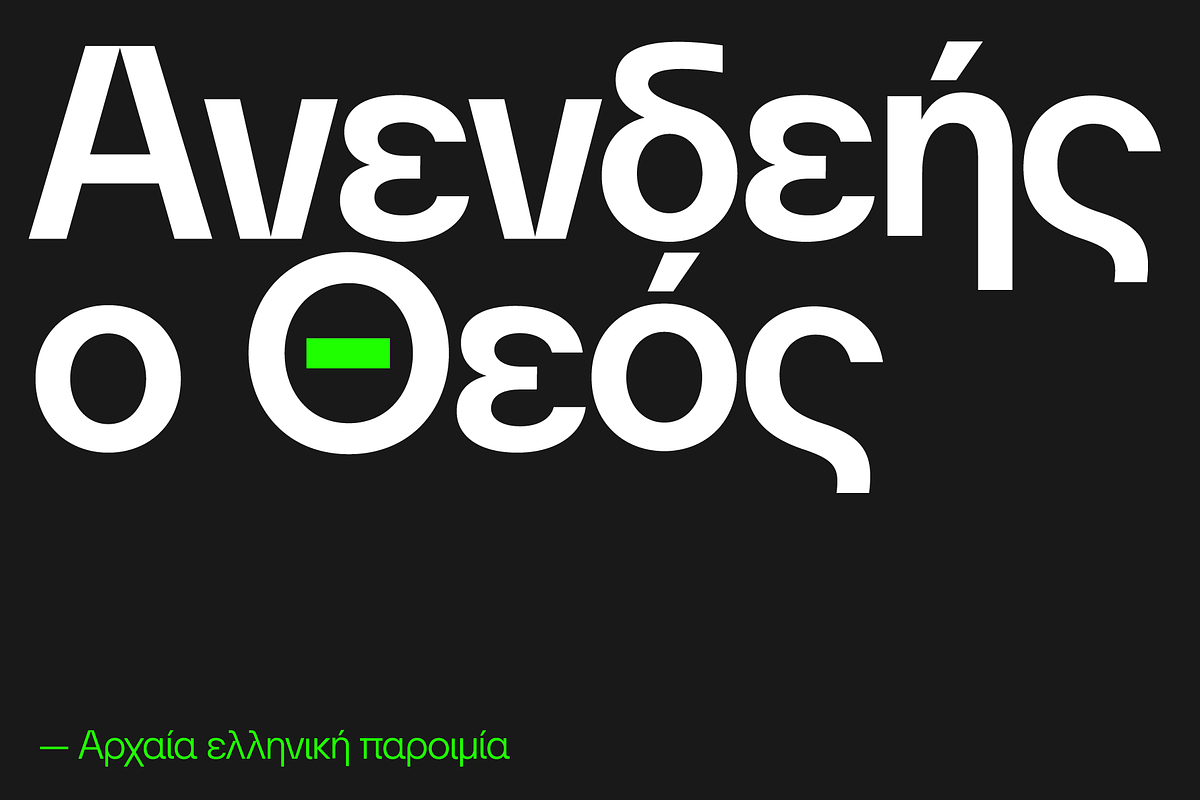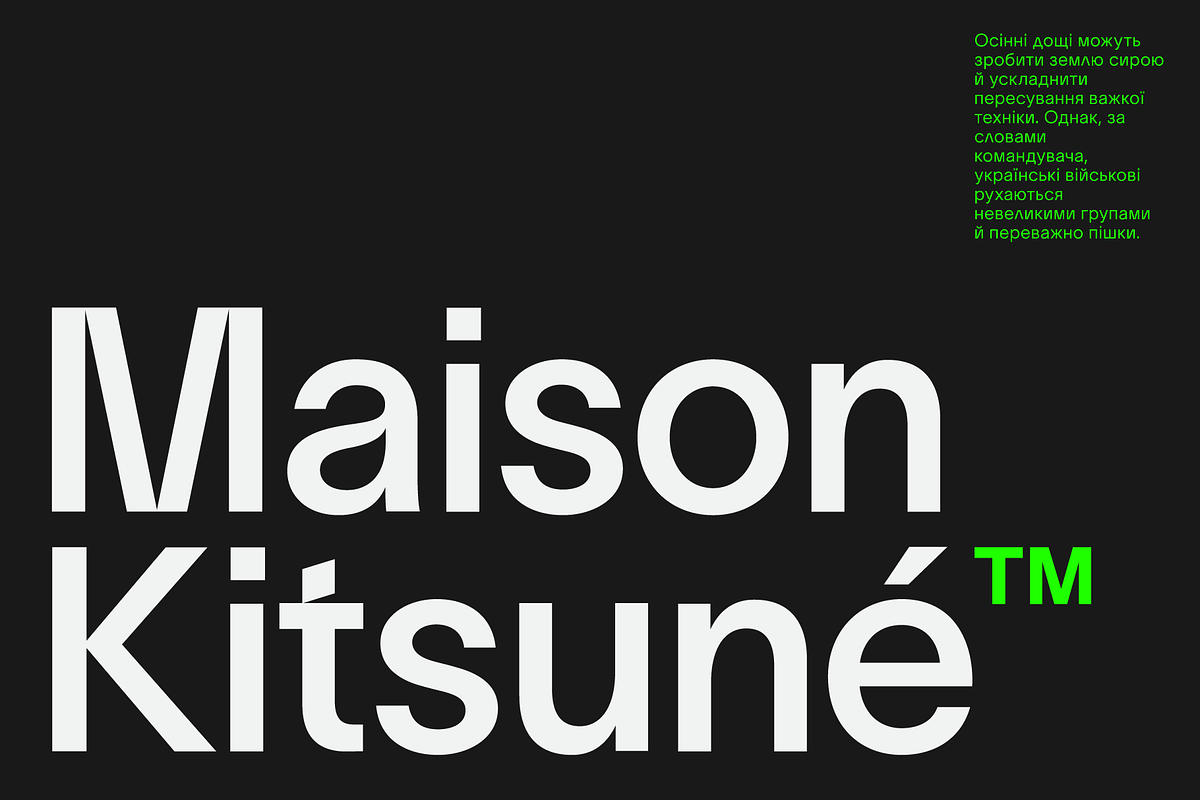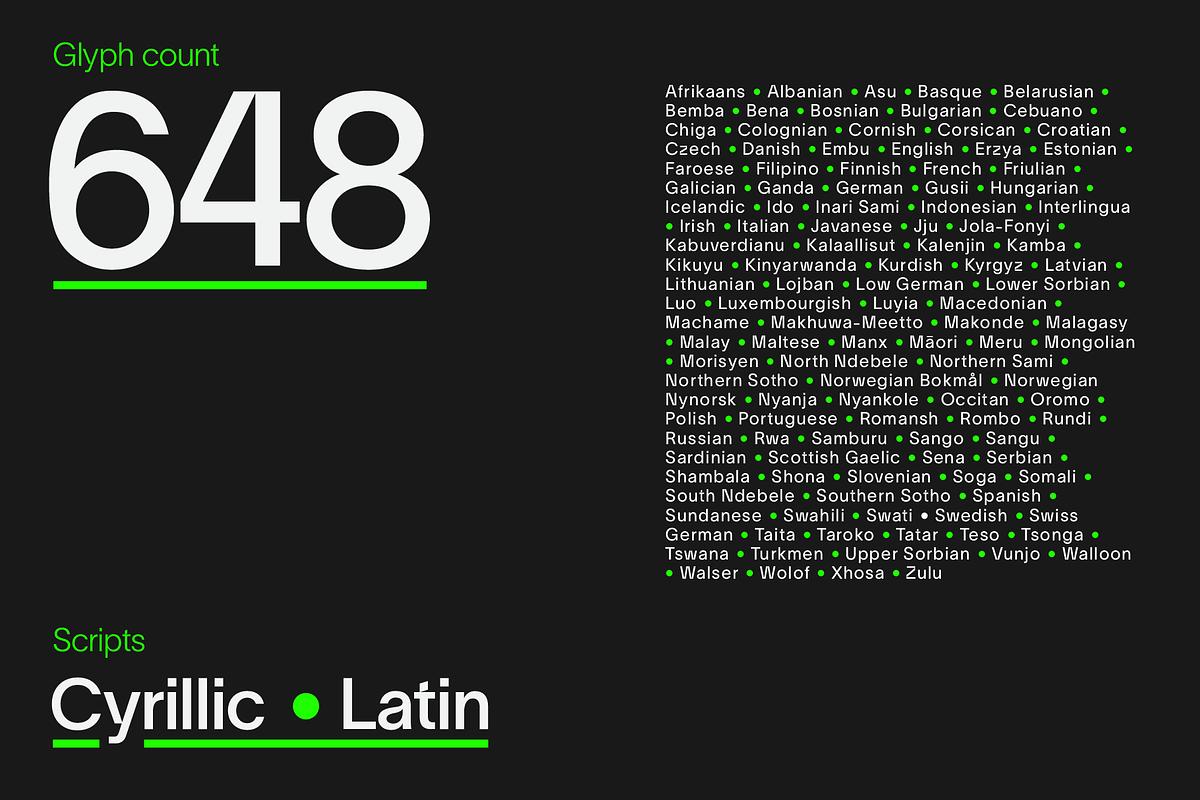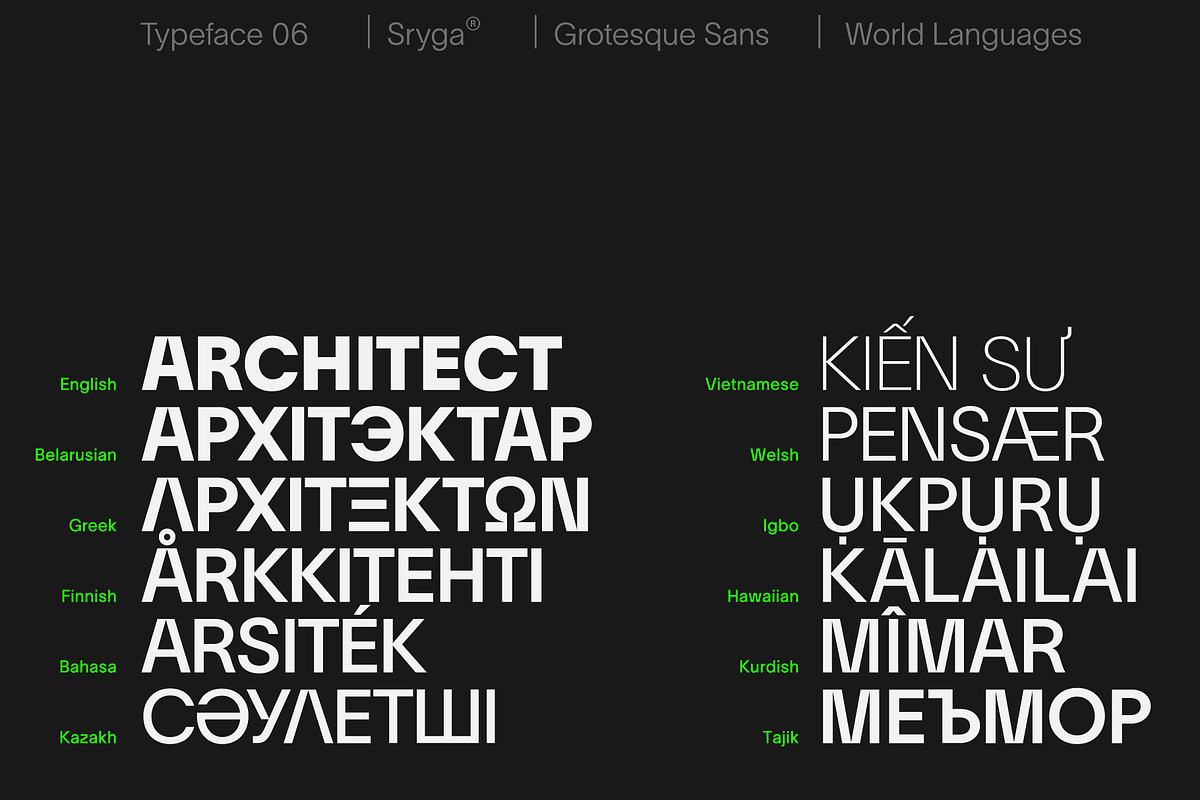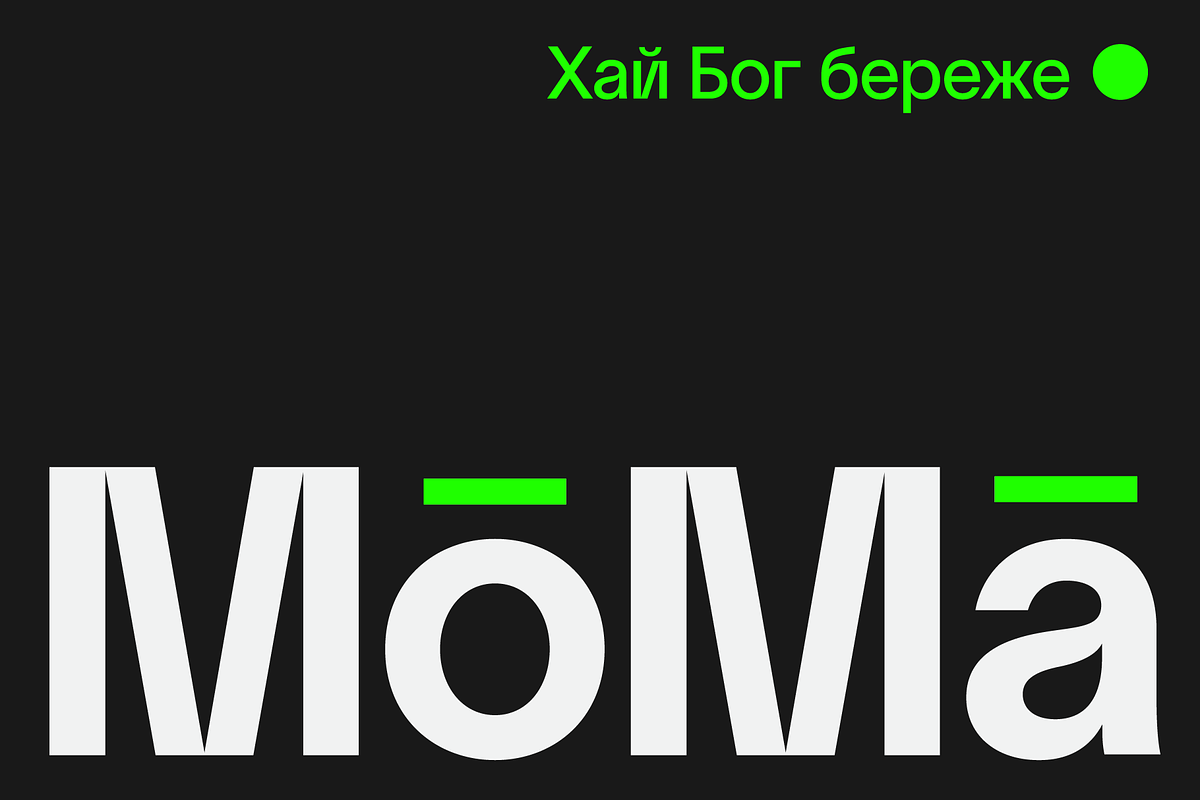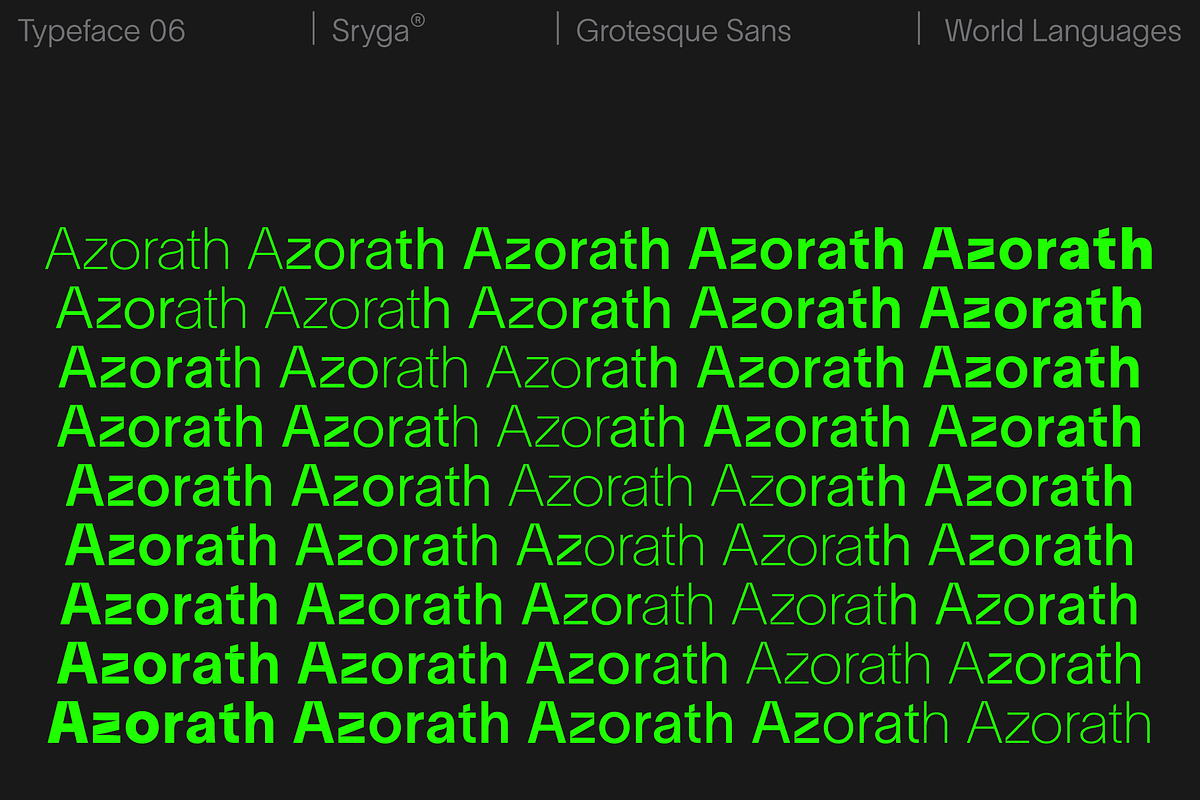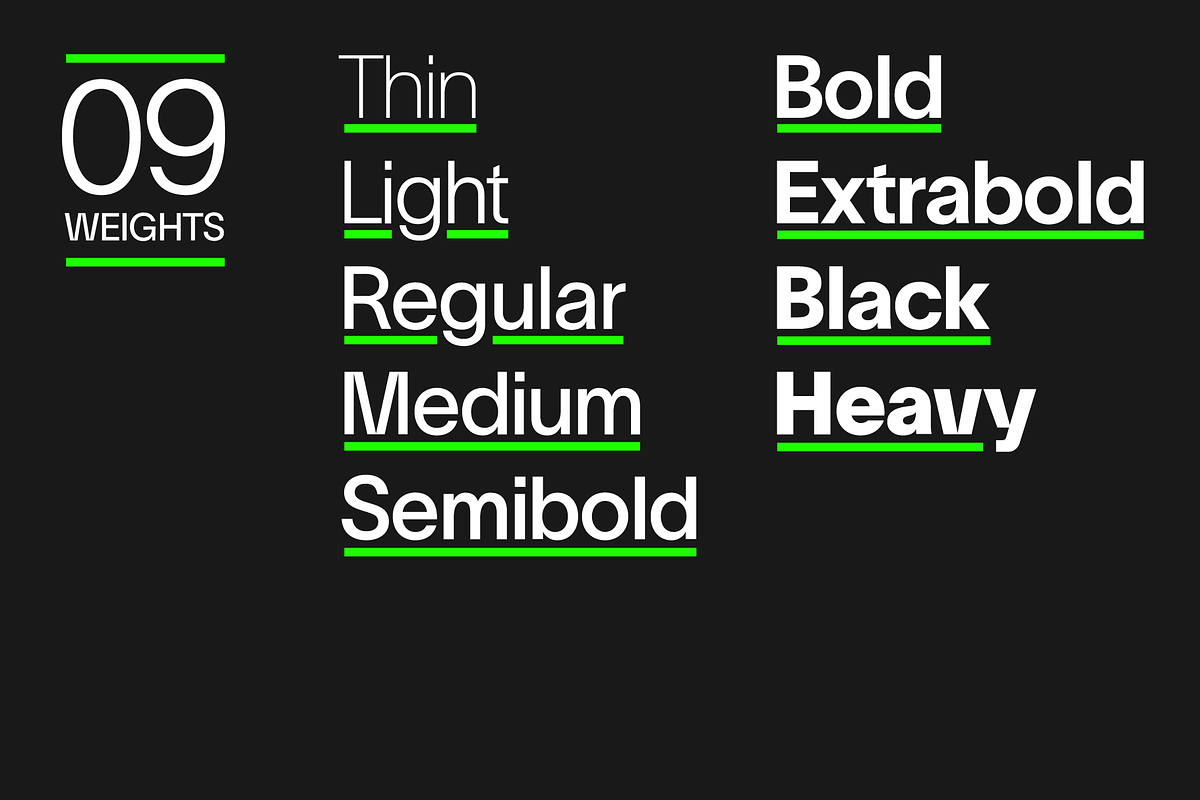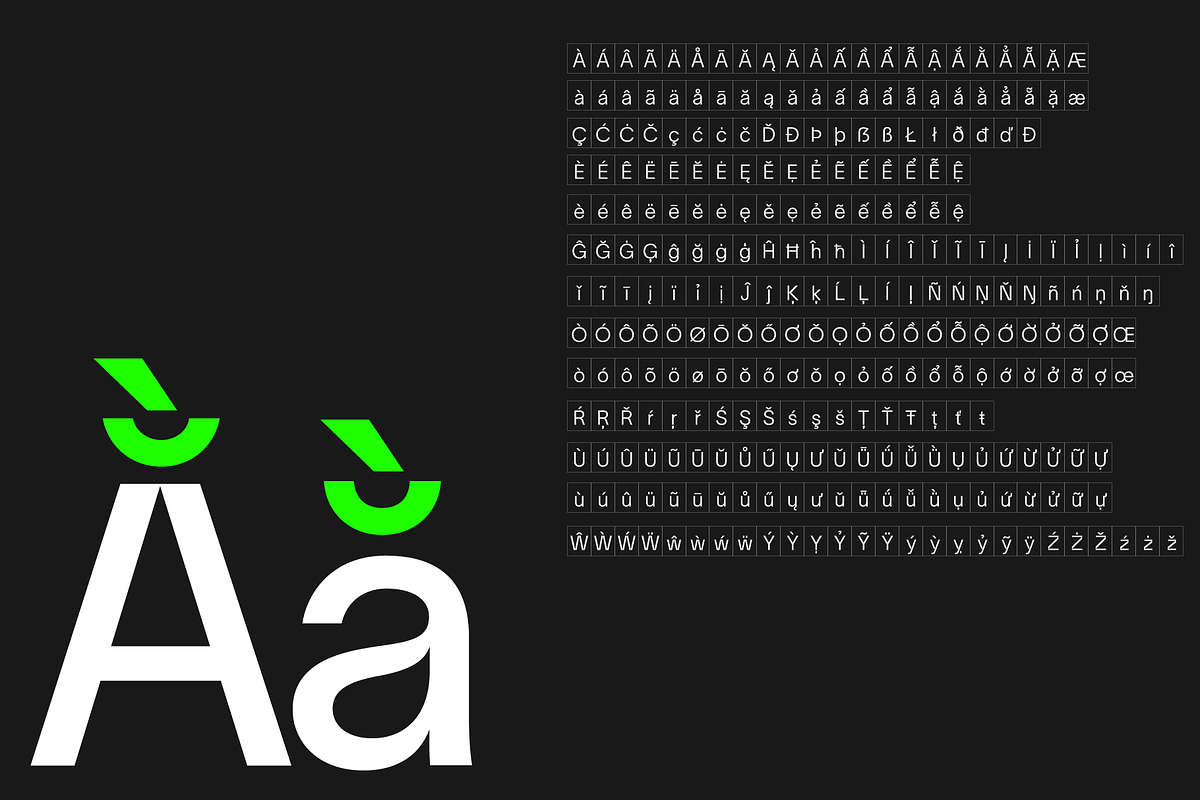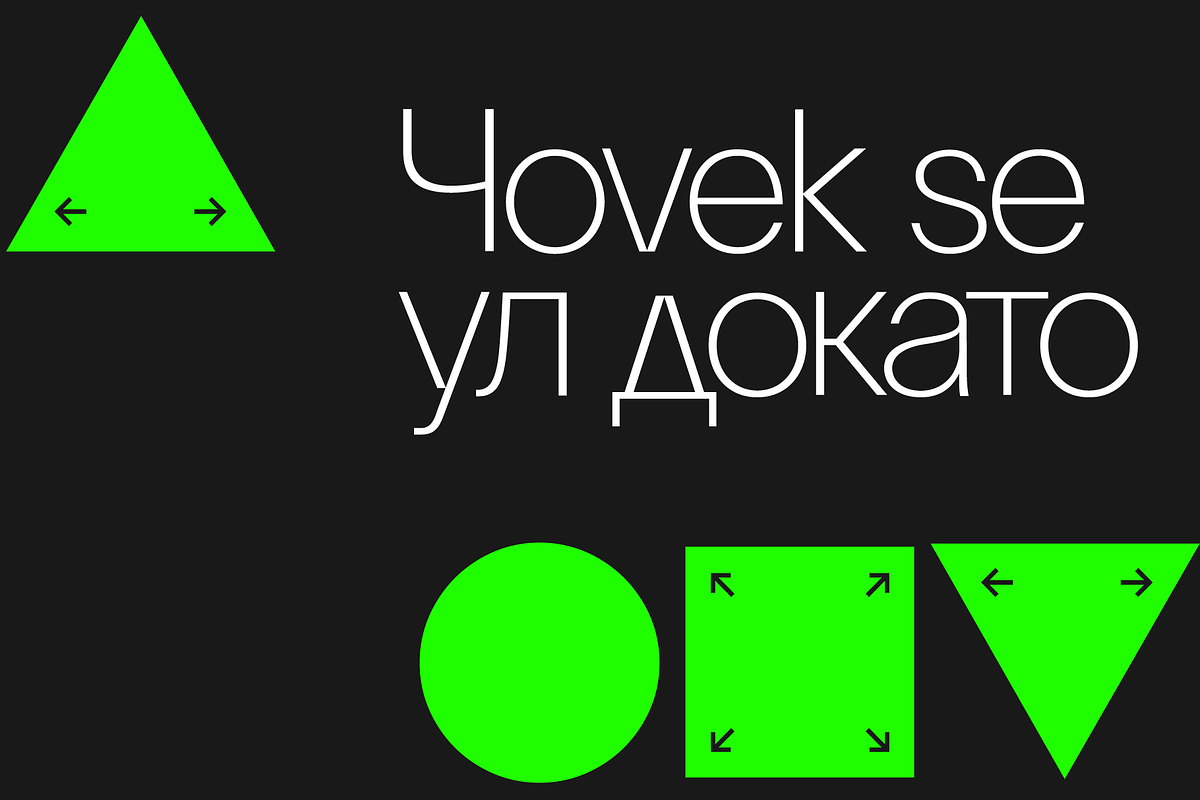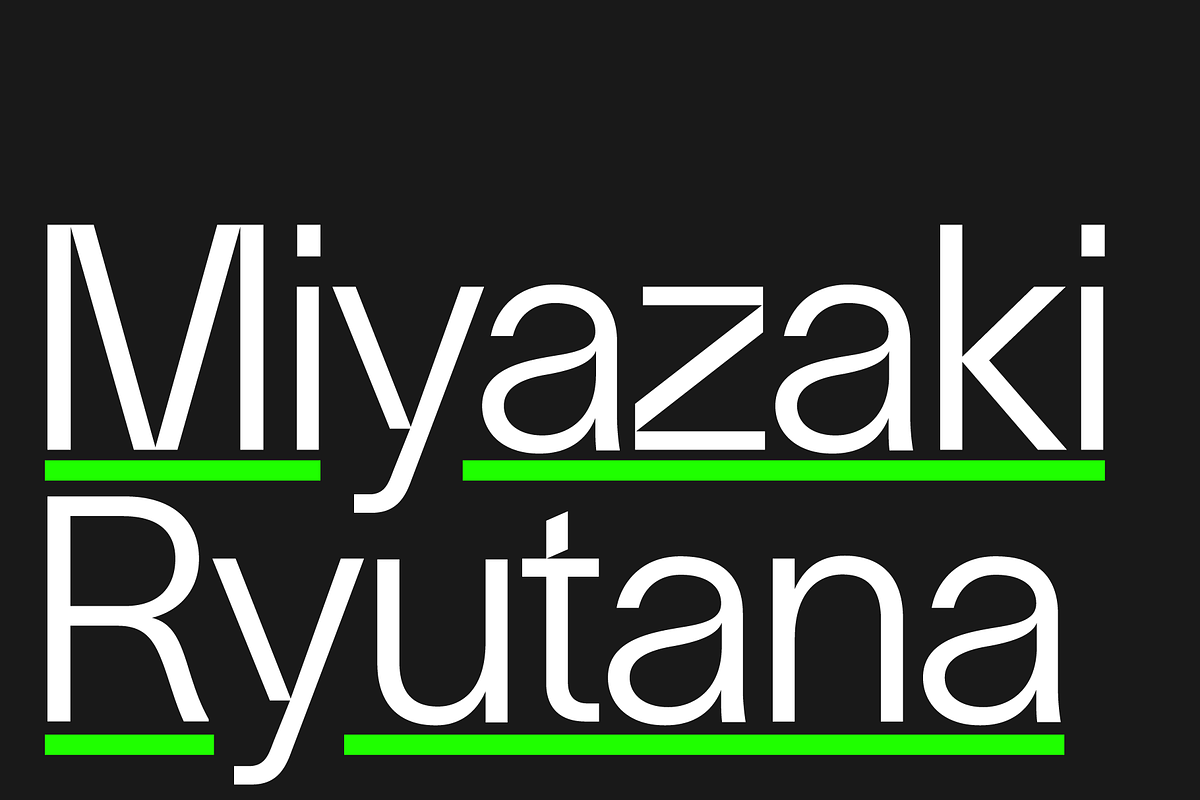
Azorath — Neo Brutalist Sans Font
Introducing Azorath, a groundbreaking typeface that marries the bold, unyielding lines of brutalist architecture with graceful fluidity and gentle curves. Azorath's unique design defies convention, capturing attention with its juxtaposition of strength and elegance. Each glyph, meticulously crafted, tells a story of innovation and versatility, making it perfect for both powerful headlines and delicate text. Azorath is your canvas for creating captivating narratives that leave a lasting impression. Elevate your projects with Azorath, where raw power meets graceful finesse in the world of typography.